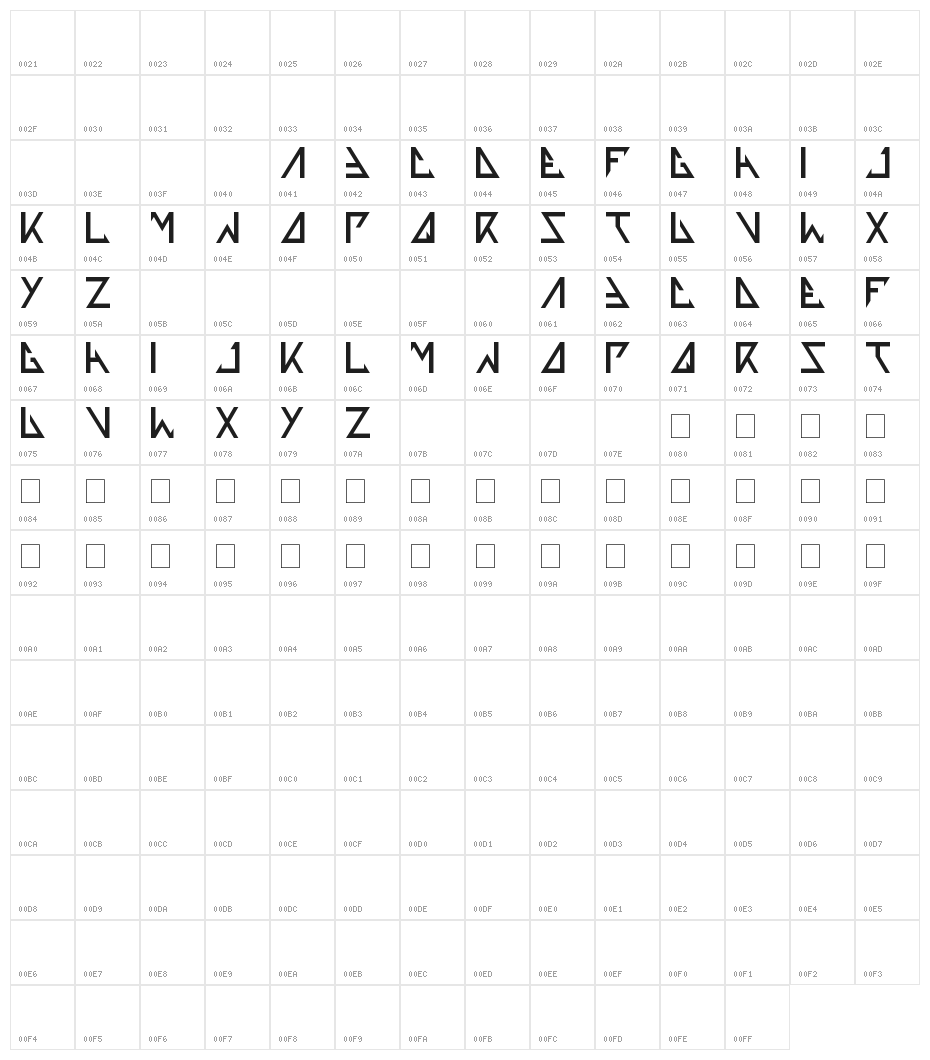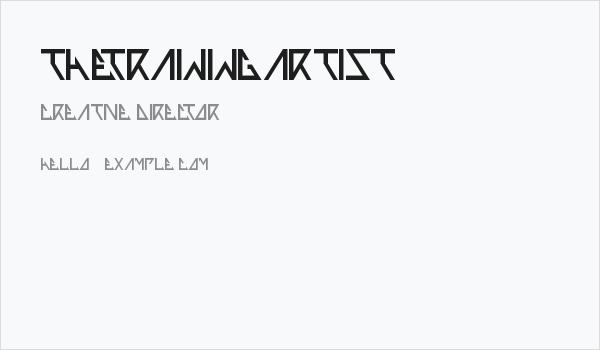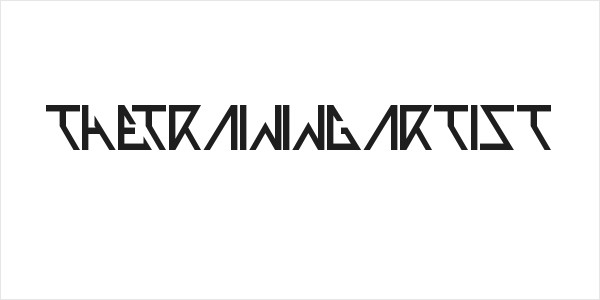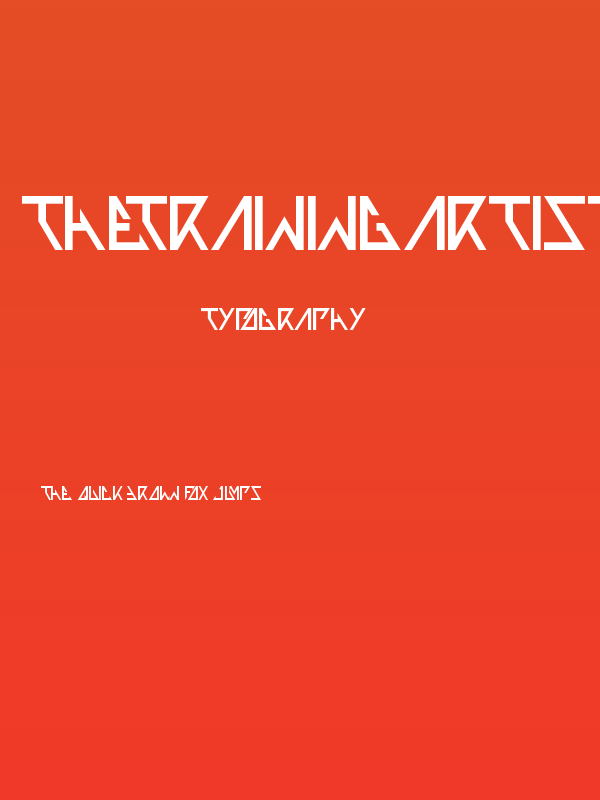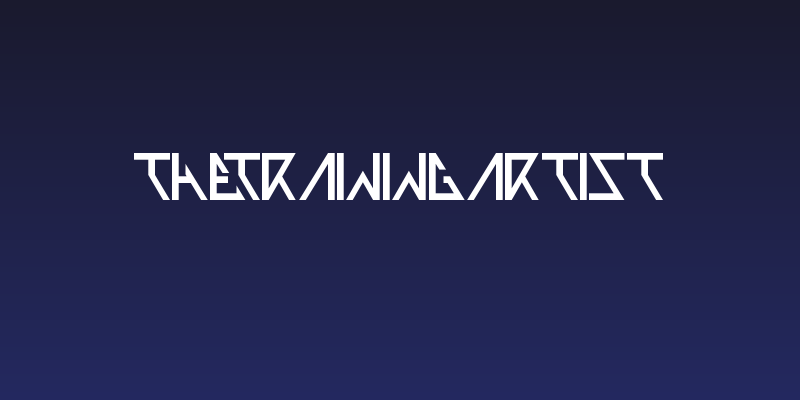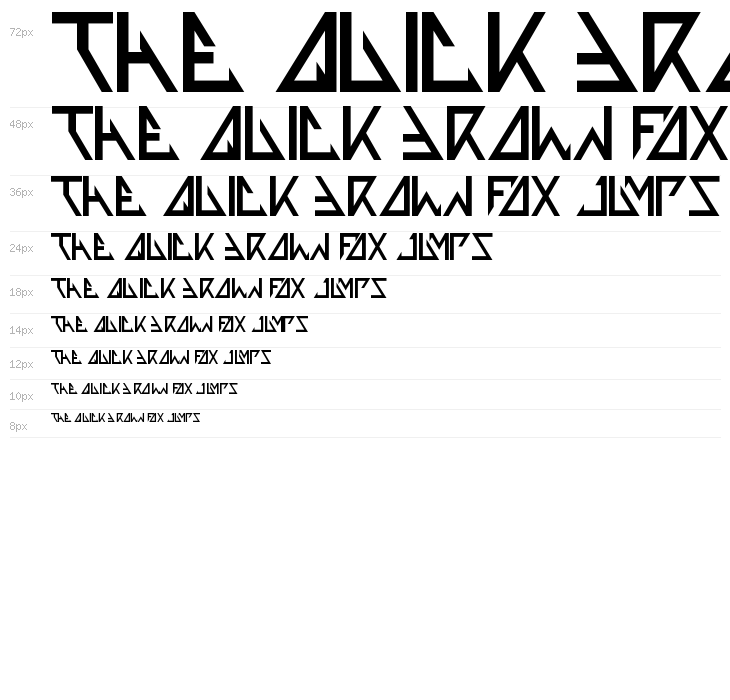
thetrainingartist Font
thetrainingartist Description
This font features a bold, geometric design with sharp angles and a futuristic aesthetic. Each character is constructed with a series of straight lines and acute angles, giving it a dynamic and edgy appearance. The uppercase letters are particularly striking, with a uniform height and consistent line thickness that enhances the font's modern appeal. The overall design is reminiscent of digital or sci-fi themes, making it suitable for projects that require a contemporary and innovative look. The spacing between characters is tight, contributing to a cohesive and compact visual impact.